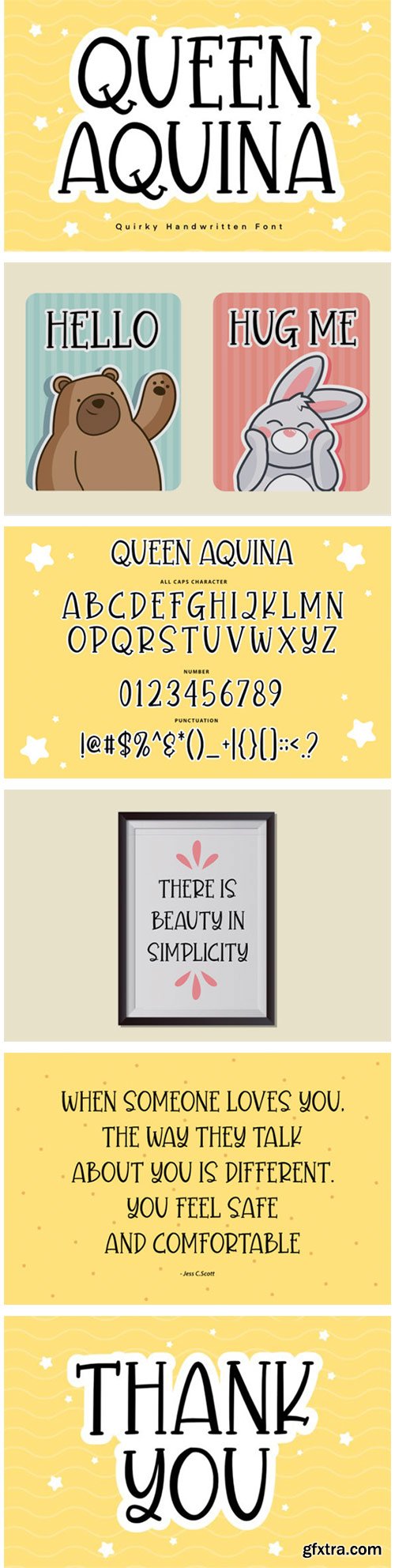
Queen Aquina Font
Queen Aquina is a whimsical display font with an incredibly friendly feel. Clean and a little bit quirky, this font is the perfect fit for all of your logos, branding, social media, and crafty DIY projects.